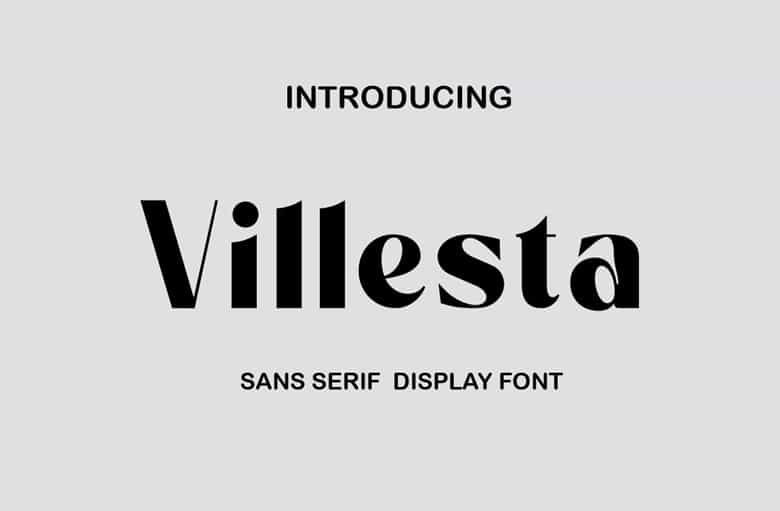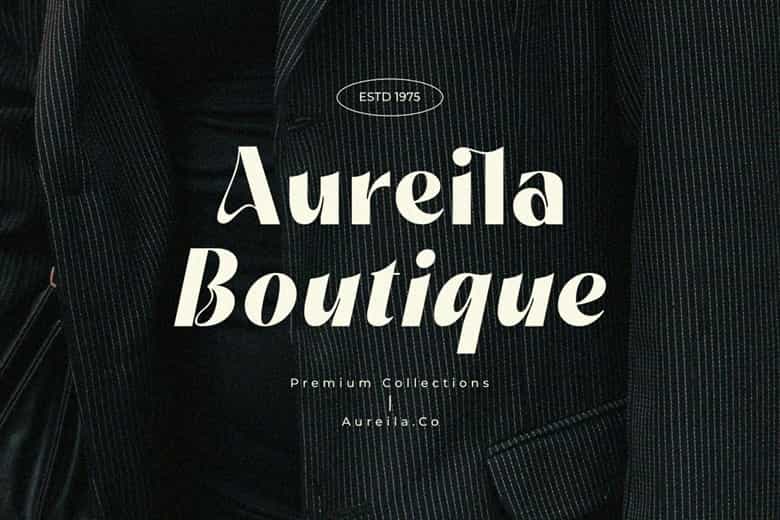
Villesta is a sans serif typeface intended for use in contemporary projects as its design is clean, elegant and minimalistic. Clean lines and symmetrical structure make this font appropriate for different designs and postings like branding, posters, and interfaces. Thus in term of design, Villesta comes in two unique styles namely Regular and Italic.